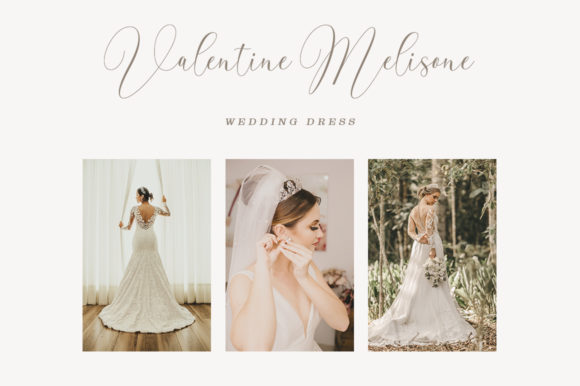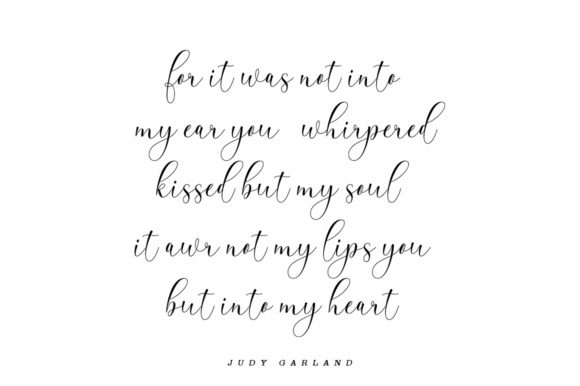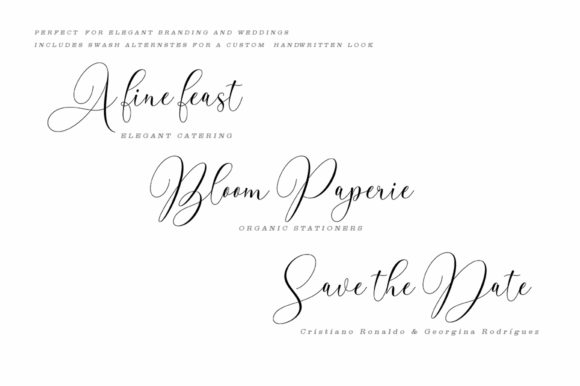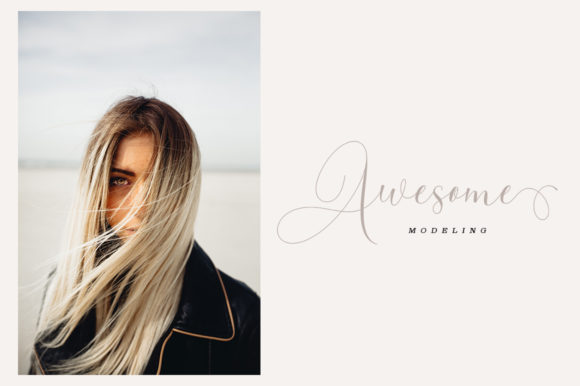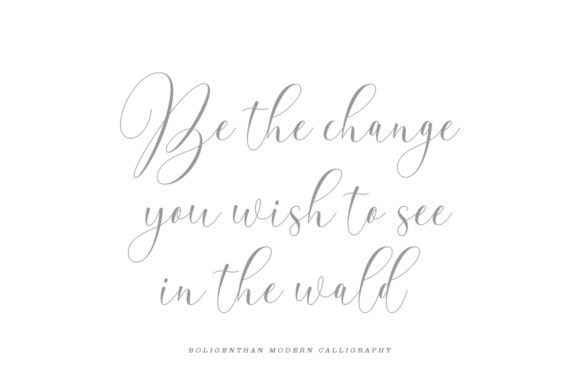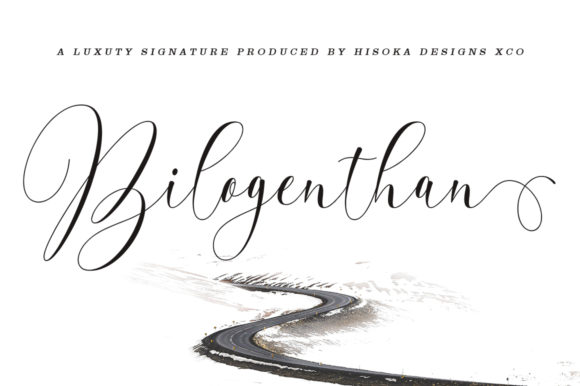
Bilogenthan Font: Elevate Your Designs with Elegance and Flair
In the world of typography, a font can make or break a design. It’s the perfect blend of form and function, where aesthetics meet readability. For designers and crafters looking to add a touch of sophistication to their projects, Bilogenthan Font is an excellent choice. This delicate, elegant, and flowing handwritten font is designed to bring a new level of refinement to your creations.
The Beauty of Bilogenthan
Bilogenthan Font boasts beautiful and well-balanced characters, making it an incredibly versatile typeface. Its varying baseline, smooth lines, and gorgeous glyphs work together in harmony to create a visually stunning effect. Whether you’re designing a logo, crafting a social media post, or creating a website, Bilogenthan is sure to make your project stand out.
One of the standout features of Bilogenthan is its elegant flow. The font’s handwritten nature gives it a personal and approachable feel, while its refined lines and curves add a level of sophistication. This makes it perfect for designs that require a touch of class and poise.
Key Features of Bilogenthan Font
- Varying Baseline: The font’s unique baseline adds a touch of whimsy and playfulness, making it perfect for designs that require a bit of personality.
- Smooth Lines: Bilogenthan’s smooth lines and curves create a seamless and refined look, making it ideal for designs that require a high level of sophistication.
- Gorgeous Glyphs: The font’s beautiful glyphs add an extra layer of depth and visual interest, making your designs more engaging and dynamic.
- Stunning Alternates: Bilogenthan features a range of alternate characters, allowing you to add variety and creativity to your designs.
Why Choose Bilogenthan Font?
So why choose Bilogenthan Font for your next project? Here are just a few reasons:
- Versatility: Bilogenthan’s elegant and refined design makes it perfect for a wide range of projects, from logos and branding to social media posts and websites.
- Readability: The font’s clear and flowing design ensures that your text is easy to read, making it perfect for designs that require a high level of legibility.
- Creativity: With its range of alternate characters and gorgeous glyphs, Bilogenthan Font offers endless opportunities for creative expression.
Using Bilogenthan Font in Your Designs
So how can you use Bilogenthan Font in your designs? Here are a few ideas to get you started:
- Logo Design: Use Bilogenthan Font to create a stunning logo that showcases your brand’s personality and style.
- Social Media Graphics: Add a touch of elegance to your social media posts with Bilogenthan Font.
- Web Design: Use Bilogenthan Font to create a beautiful and refined website that showcases your brand’s style.
- Crafting: Bilogenthan Font is perfect for crafters who want to add a touch of sophistication to their projects, from papercrafting to sewing.
In conclusion, Bilogenthan Font is a beautiful and elegant handwritten font that’s perfect for designers and crafters looking to add a touch of sophistication to their projects. With its varying baseline, smooth lines, gorgeous glyphs, and stunning alternates, Bilogenthan is sure to elevate your designs and make them stand out. So why not give it a try and see how it can bring your creative ideas to life?